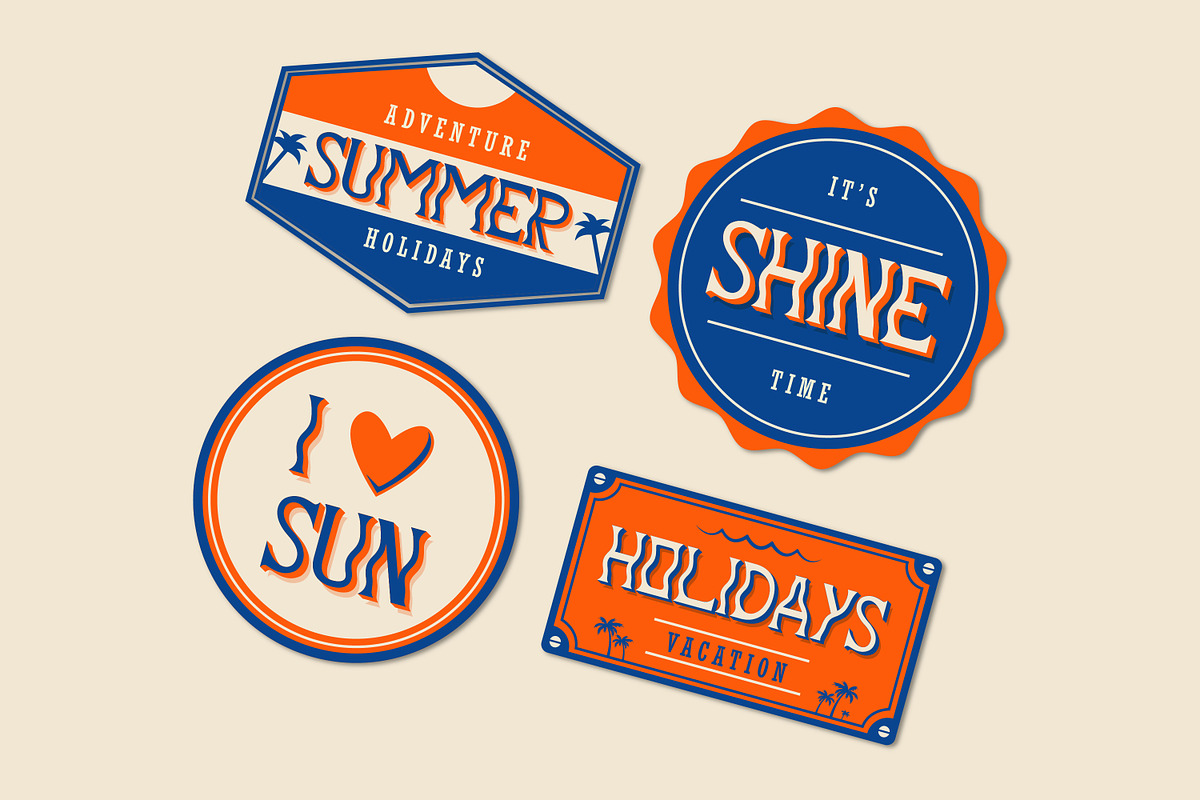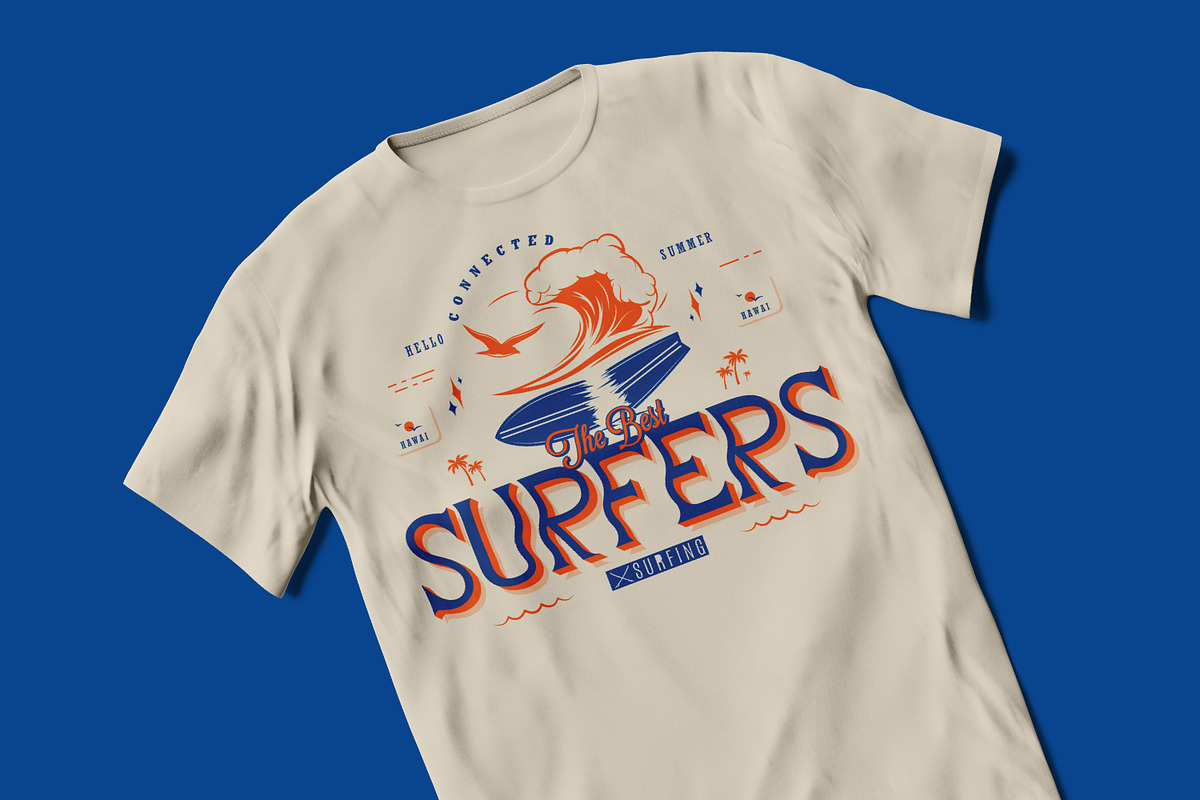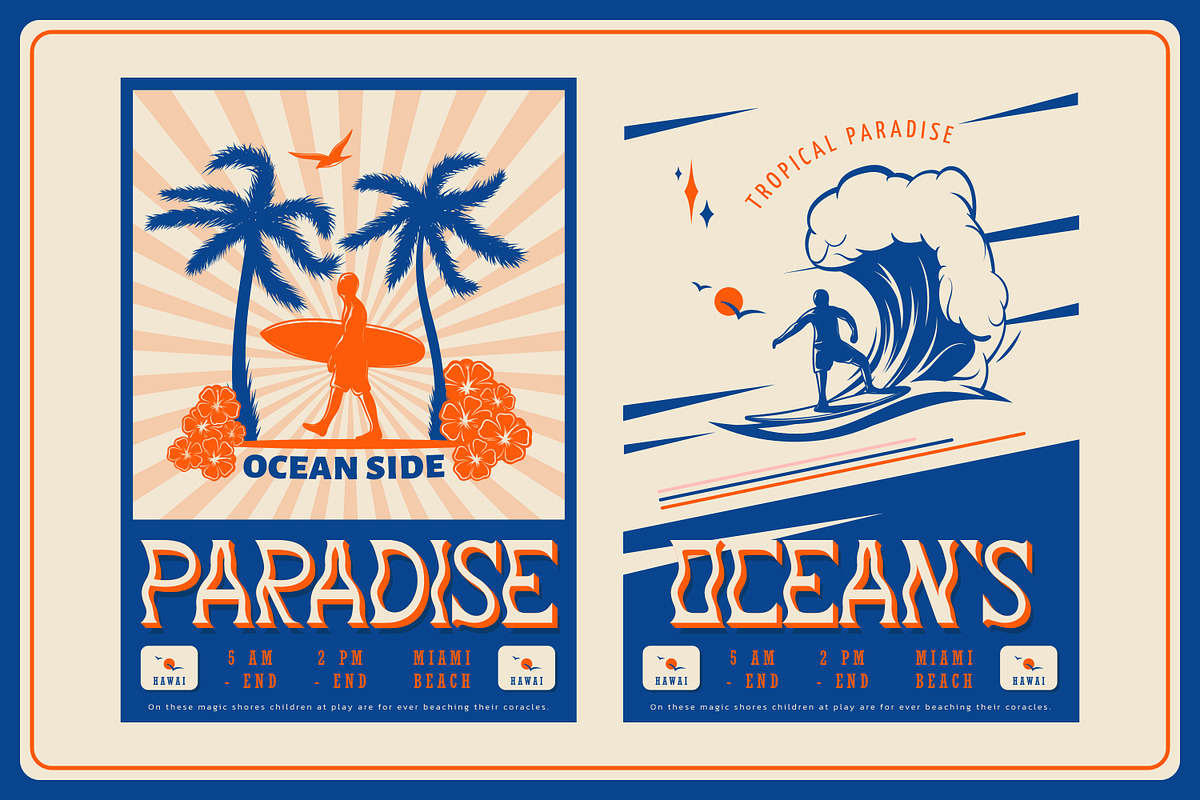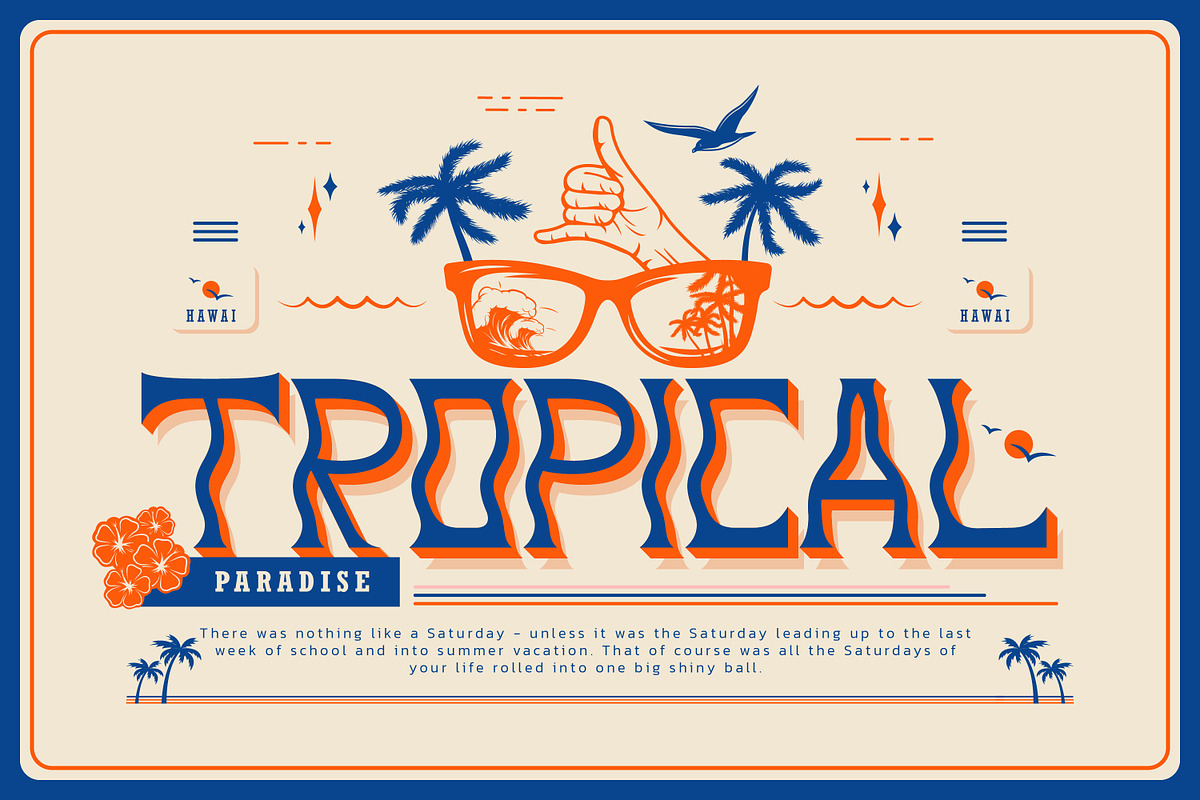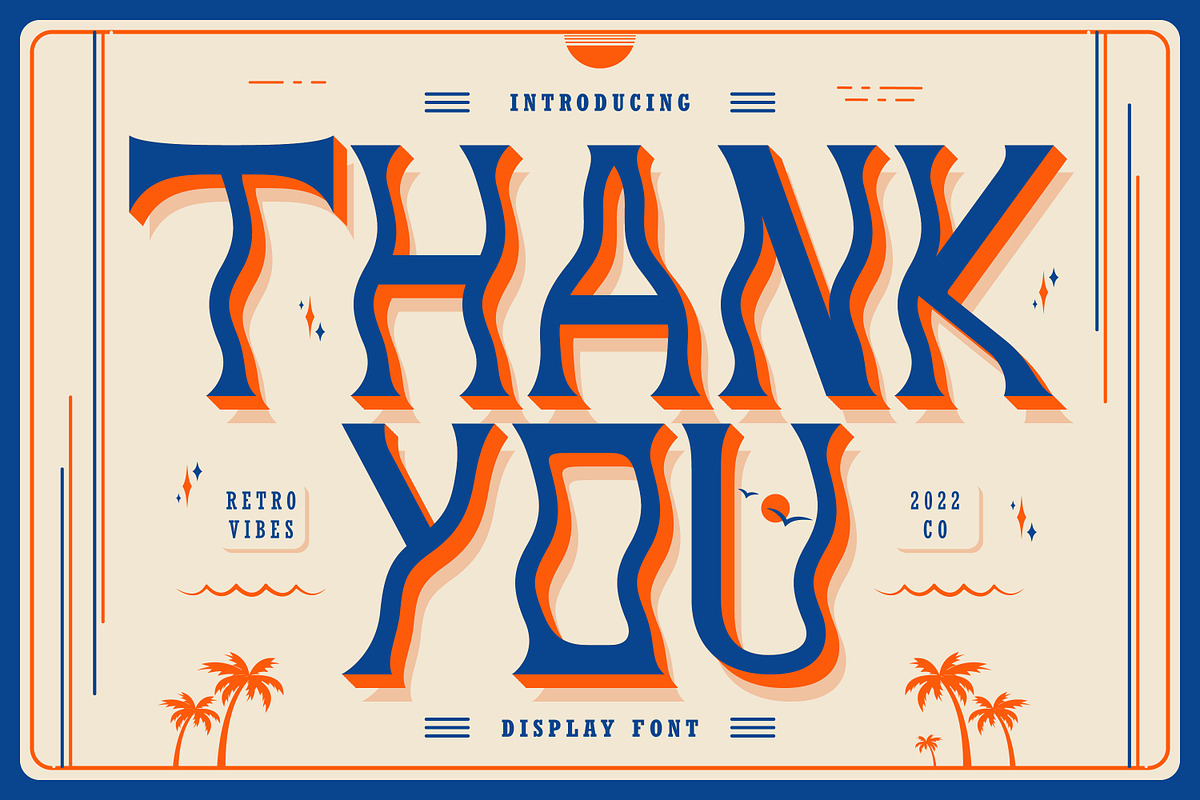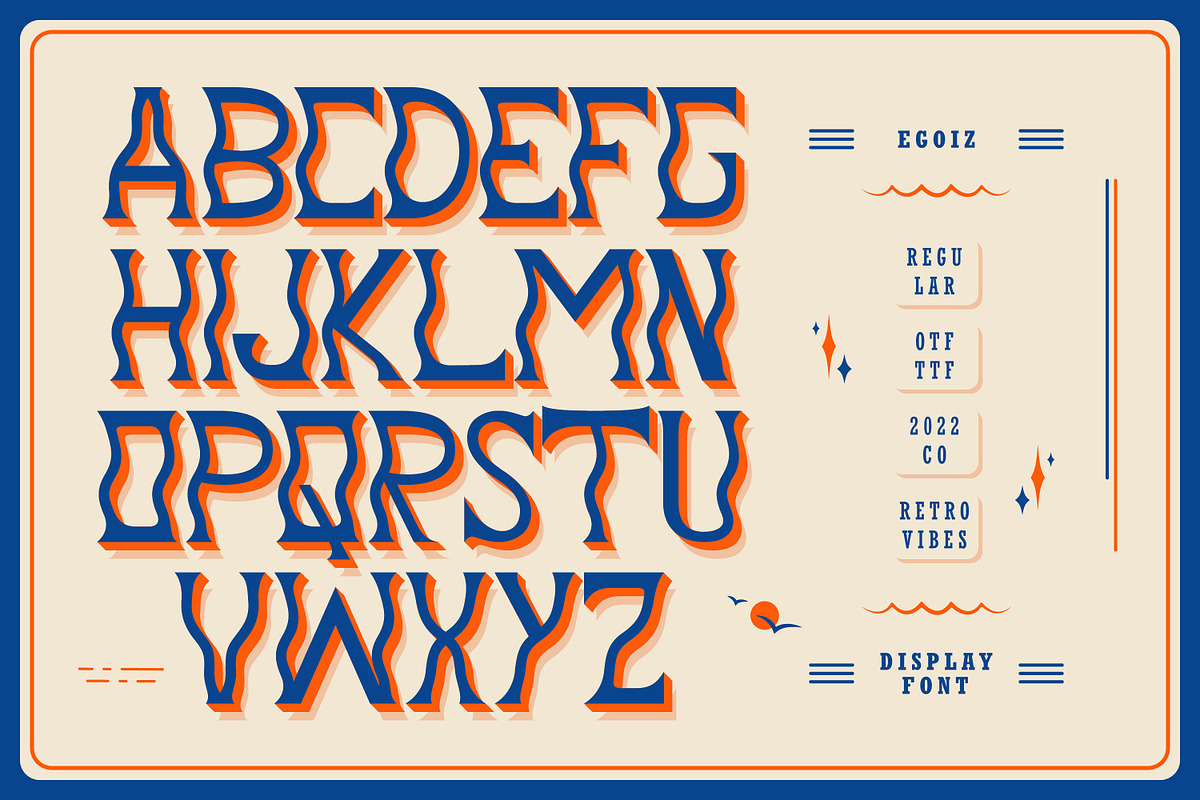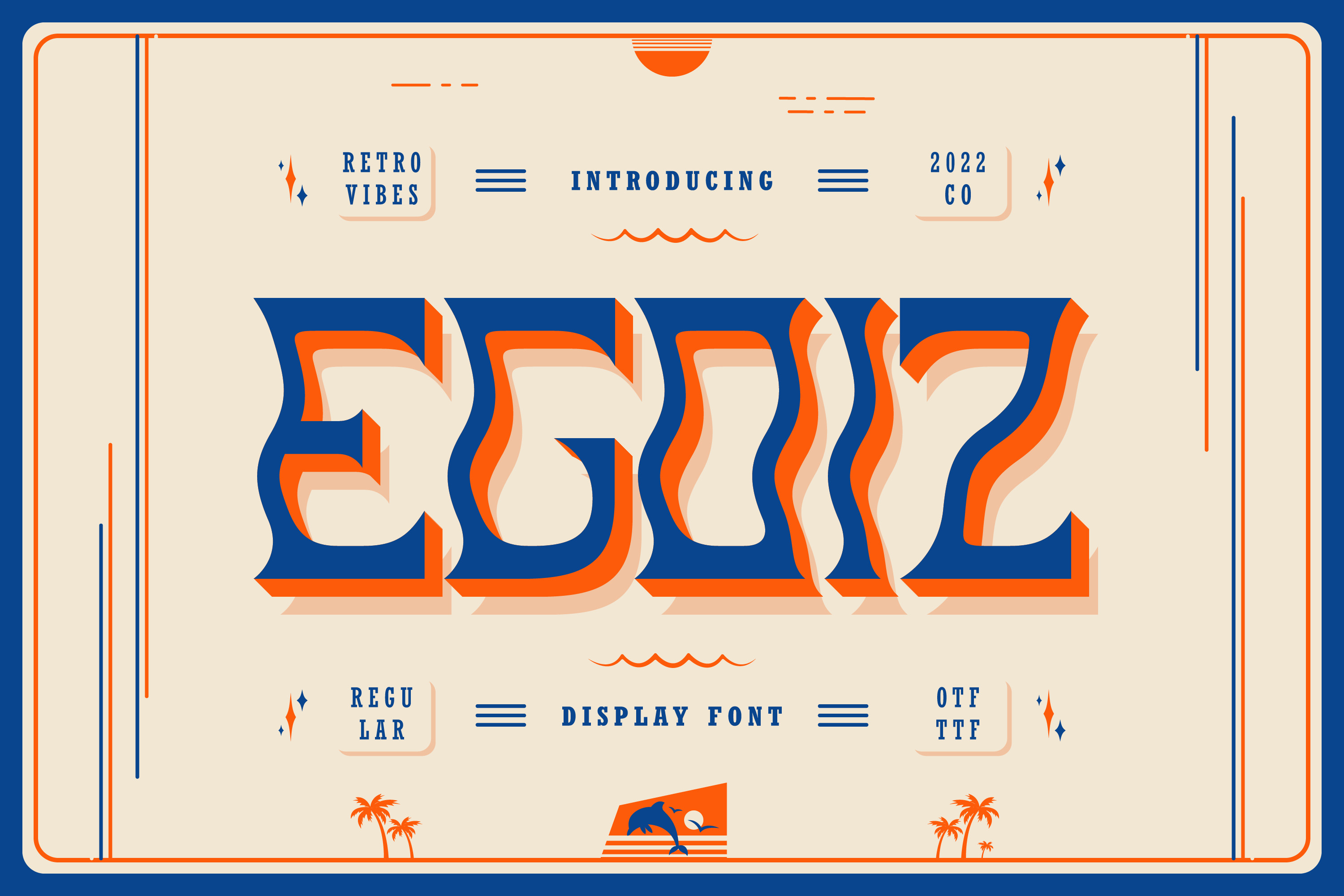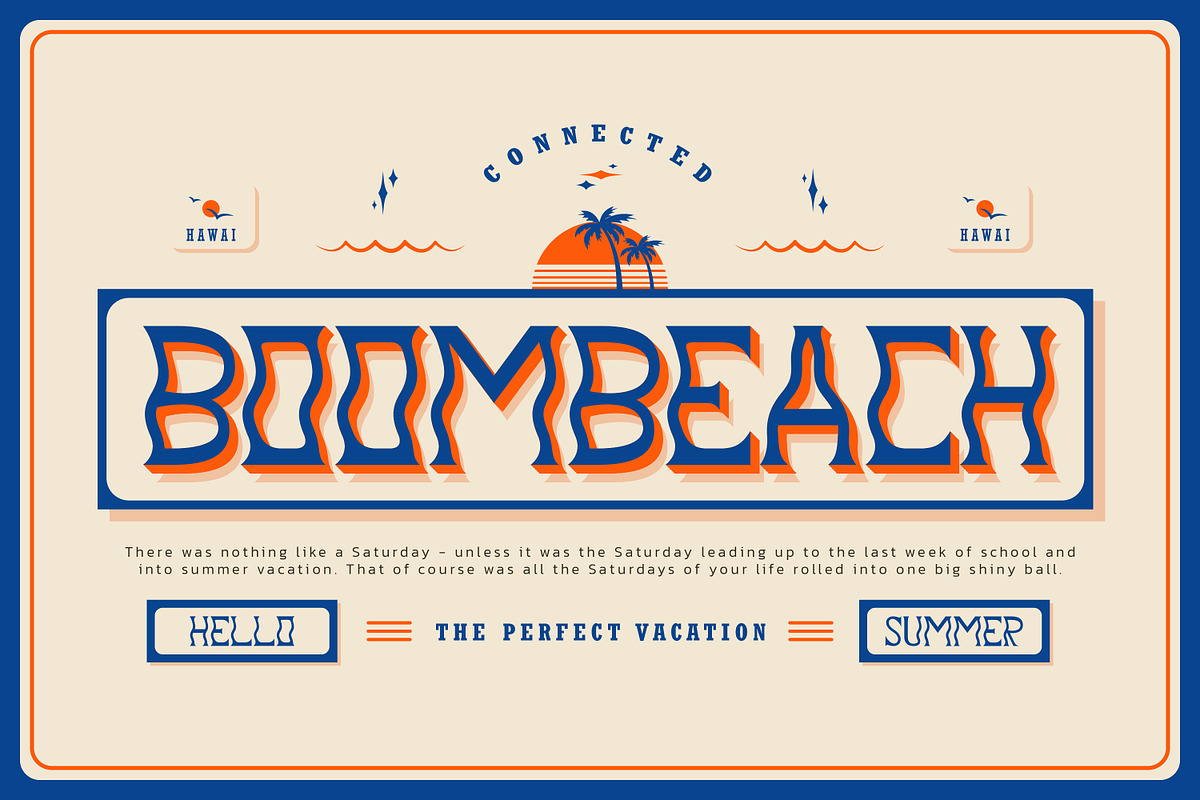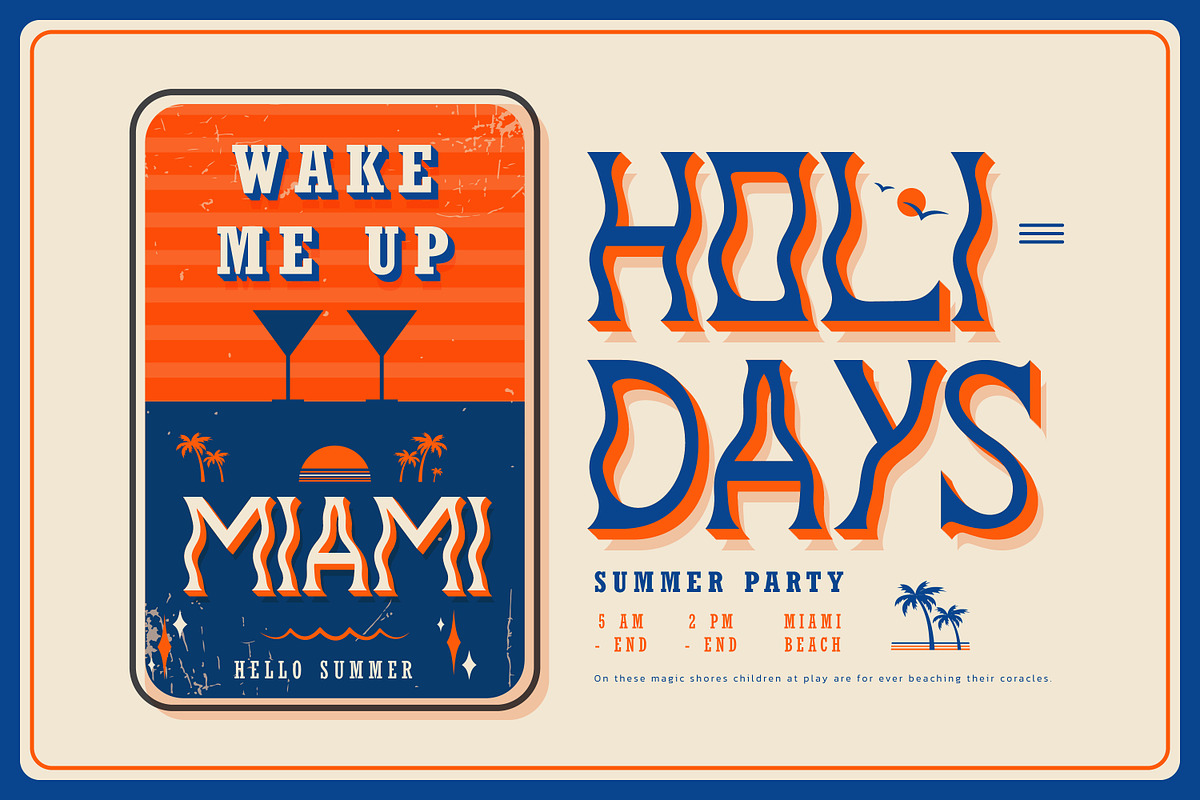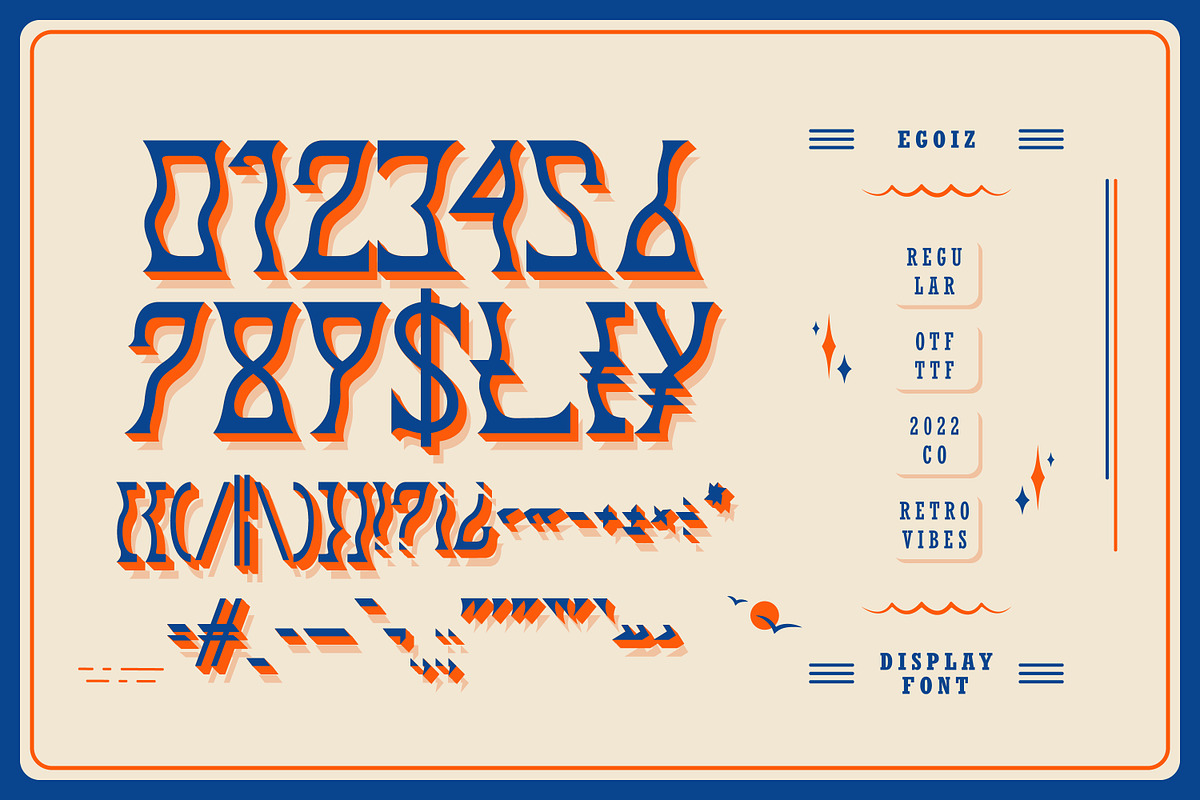
Egoiz Retro Display Font
Egoiz is a wavy, whimsical, and uniquely shaped display font. Trendy and stylish, this font will elevate each of your creations.